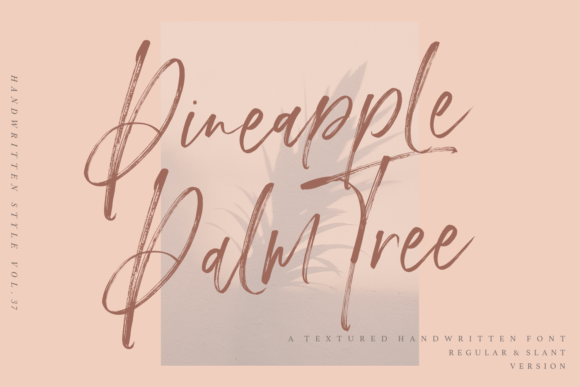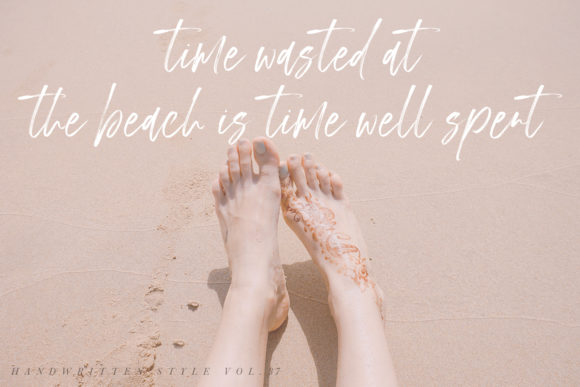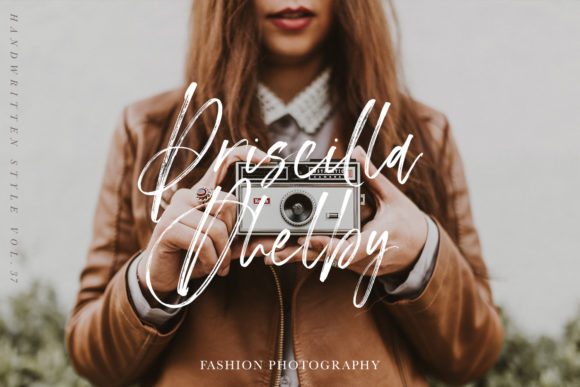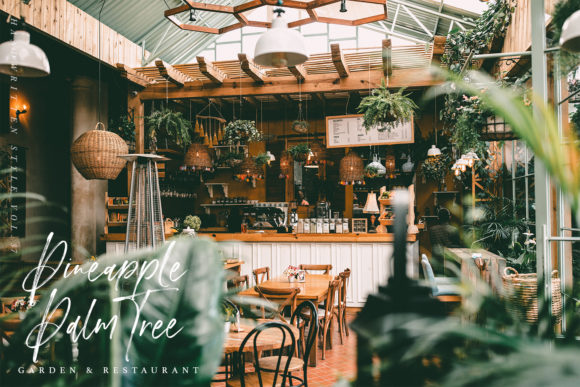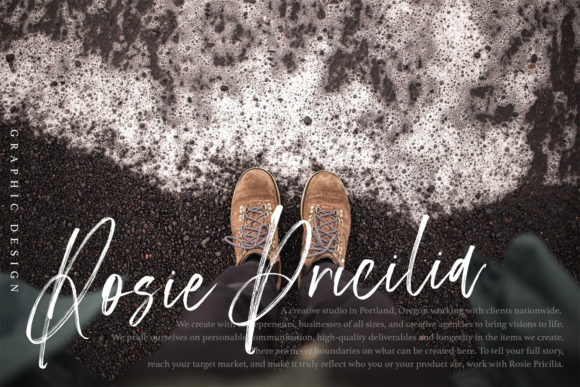
Pineapple Palm Tree Font
About Pineapple Palm Tree Font
Pineapple Palm Tree is a flowing and neat handwritten font. It maintains its classy calligraphic influences while feeling contemporary and fresh. Fall in love with it and bring your projects to the highest levels!